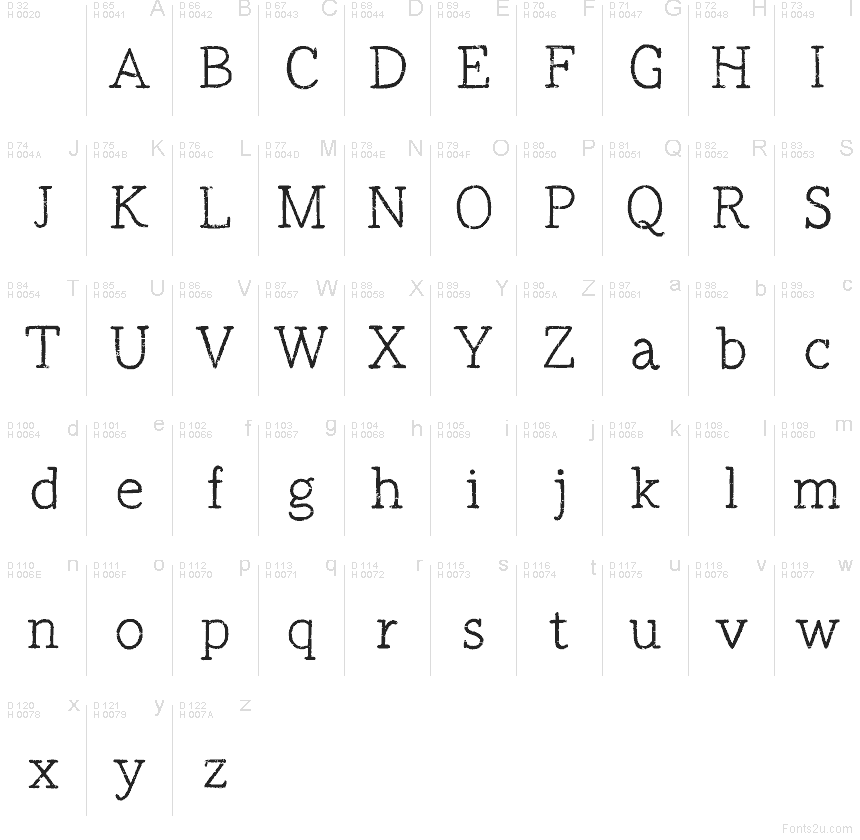
Amelia Serif DEMO
Amelia Serif font by ReveryWorks is a free eroded serif typeface that looks like it’s been stamped, scuffed, and handled a thousand times. Its grainy edges, broken contours, and slightly uneven inking give every word a worn-in, analog feel, as if it came straight off a vintage letterpress or a sun-faded poster. The structure stays classic and readable, while the distressed texture adds grit and atmosphere without turning your text into noise.
Using Amelia Serif, this free font shines on book covers, gig posters, zines, vintage-style logos, packaging, and title cards where you want character that feels lived-in rather than polished. The letters hold up nicely at larger sizes, where the erosion and speckled details can really breathe, and you can pair it with a clean geometric sans for body copy to keep layouts grounded.